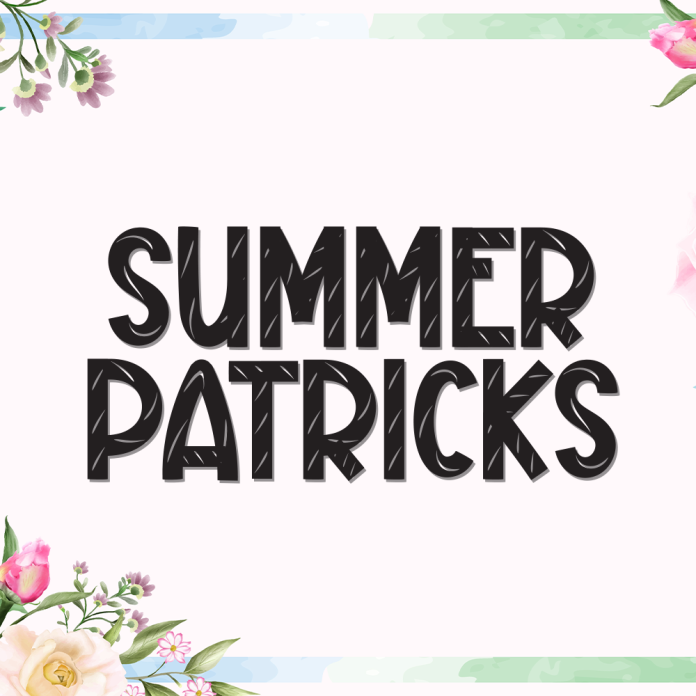
Summer Patricks is a lively and fun display font that captures the warmth and excitement of summertime. With its quirky shapes and playful vibe, this font adds a sunny personality to any creative work.
Ideal for summer events, vacation-themed graphics, kids’ projects, social media posts, and merchandise, Summer Patricks brings energy and a carefree spirit to your designs.
Bold and joyful display style
Unique letterforms with a casual and sunny feel
Great for summer promos, travel designs, posters, and more
Celebrate the sunshine with Summer Patricks — a display font made for fun, creativity, and happy vibes!